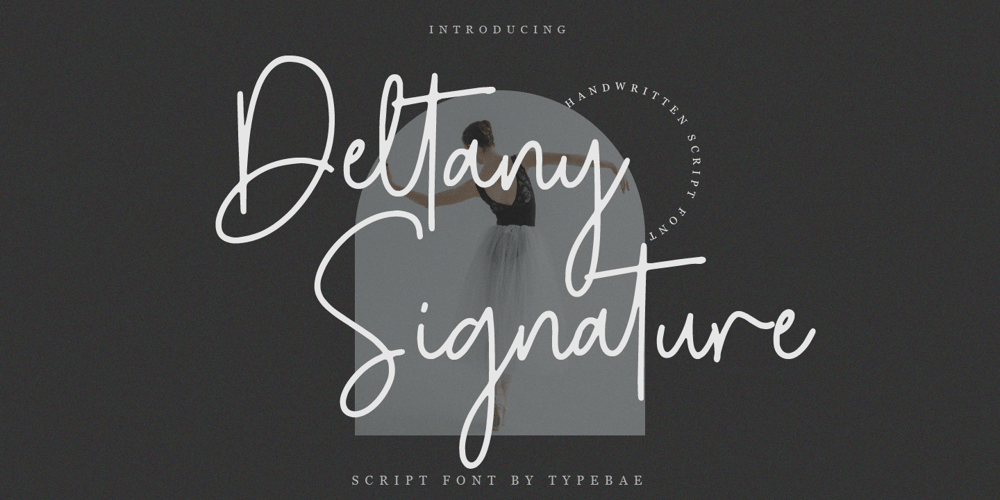
Deltany Signature Font Family was designed by Iqbal Pauji and published by Typebae. Deltany Signature contains 1 styles and family package options. Deltany Signature Font is a mesmerizing handwritten signature script font that exudes elegance and charm. Each letter is meticulously crafted, showcasing the seamless flow and impeccable balance, making it a perfect choice for adding a touch of class to any design project.